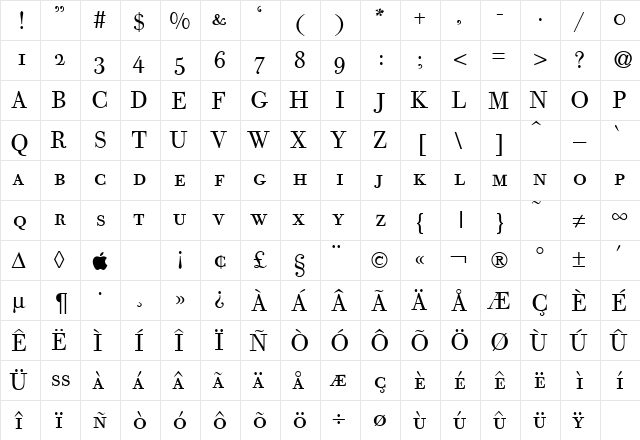
GiambattistaSmc Regular Font Preview
GiambattistaSmc Regular
Design Context for GiambattistaSmc Typeface
GiambattistaSmc is a composed and adaptable typeface that performs quietly and consistently across a wide range of design contexts.
Pro Tip: Use GiambattistaSmc in both headline and body roles to test its range before committing to a single application.